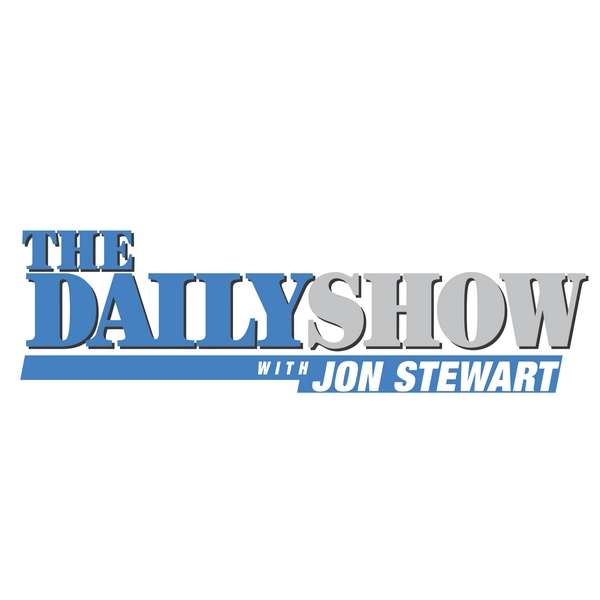
The Daily Show Font
ComedyThe Daily Show with Jon Stewart is a satirical news program known for its humorous take on current events, politics, and popular culture, hosted by a rotating cast of comedians.
The Daily Show logo incorporates a blend of fonts, featuring "The Daily Show" in the sleek Century Ultra Condensed typeface, while "with Jon Stewart" is displayed in the bold and slanted Helvetica Neue Pro Cond Black Oblique font.